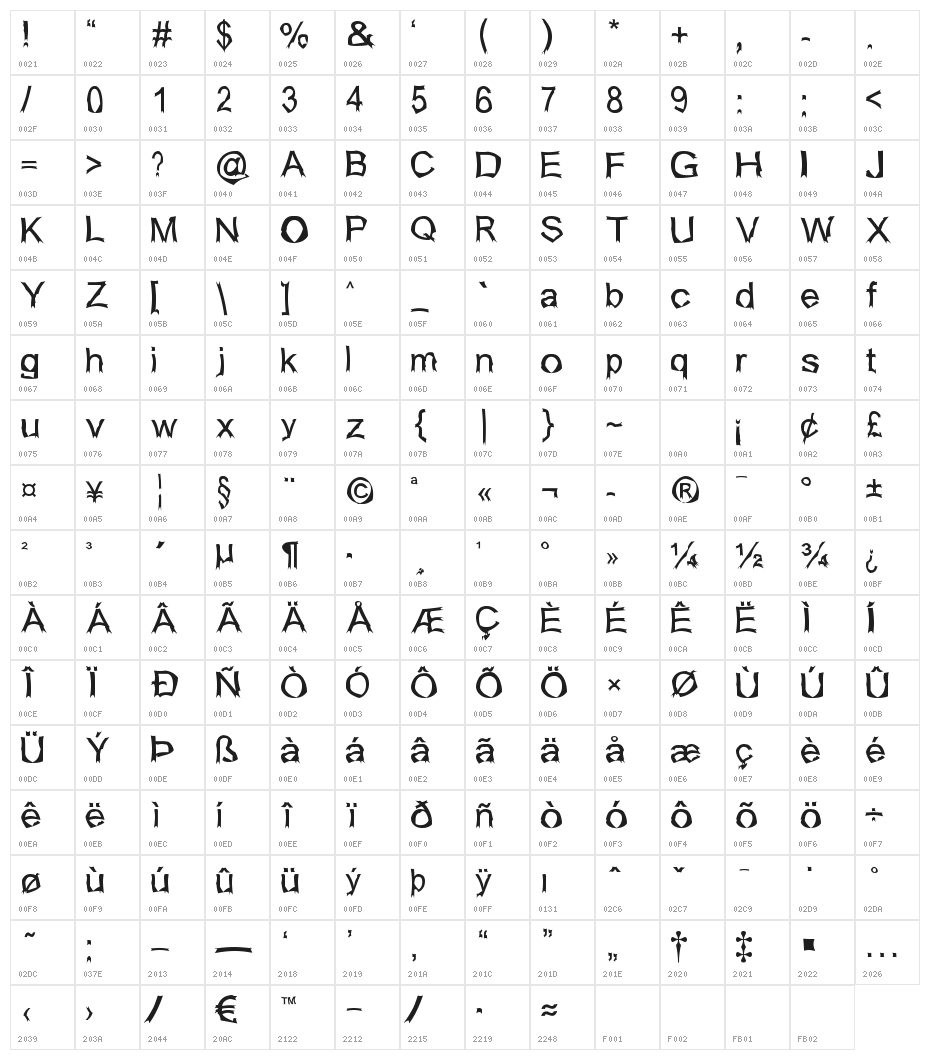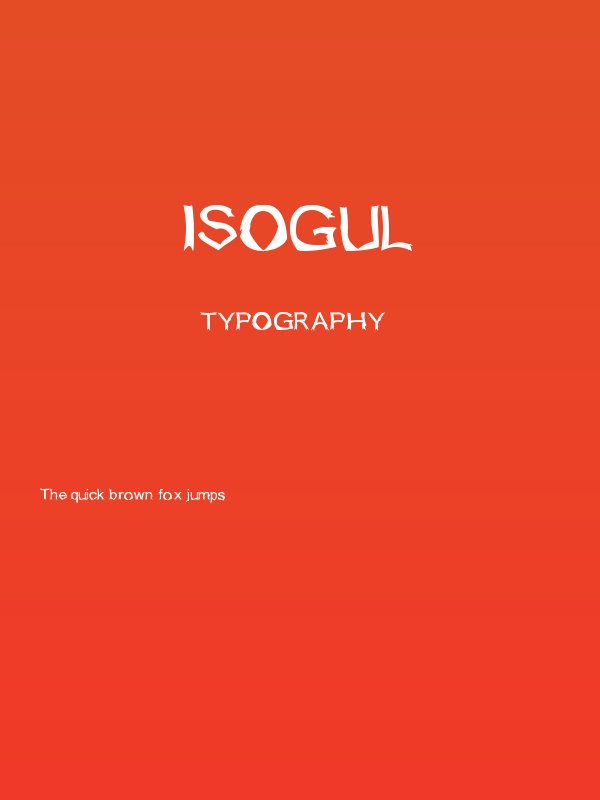
Isogul Font
Isogul Description
This font features a bold and dynamic style with sharp, angular edges and a slightly distressed appearance. The uppercase letters are particularly striking, with exaggerated serifs and a sense of movement that gives them a unique, almost aggressive character. The lowercase letters maintain this edgy aesthetic, though they are slightly more subdued. Numbers and special characters follow the same design principles, ensuring consistency across all elements. The font's overall look is reminiscent of a hand-drawn or graffiti style, making it ideal for projects that require a bold, eye-catching typeface.
Proposed ProjectsIdeal for posters, album covers, video game graphics, and any project needing a bold, edgy typeface.